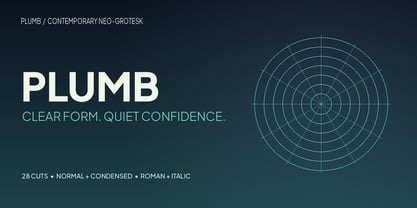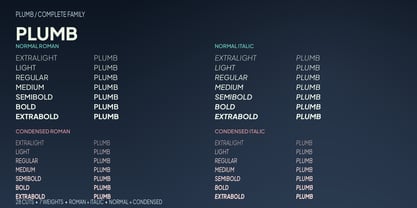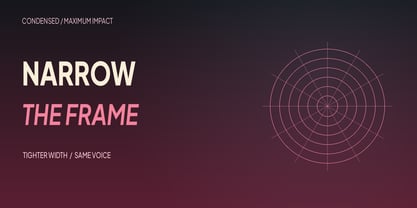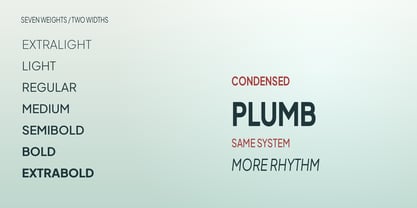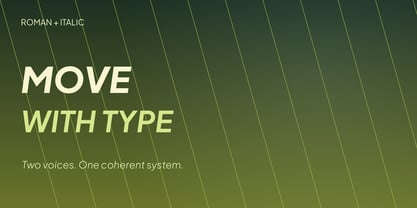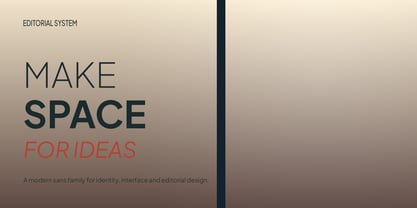
Plumb
by MD-Type
The Plumb Font Family was designed by Mehmet Dogan and published by MD-Type. Plumb contains 28 styles and family package options. More about this family
Plumb is a contemporary neo-grotesk typeface family designed for clear communication and expressive typography. Its balanced proportions, clean shapes and versatile character make it suitable for branding, editorial design, packaging, posters, interfaces and digital products.
The family includes seven weights, from ExtraLight to ExtraBold, with matching Italic styles. Each weight is also available in a Condensed version for tighter layouts and stronger visual impact. The Roman styles provide clarity and stability, while the Italics add movement and emphasis.
Plumb combines a refined modern appearance with excellent flexibility across display and text applications. Use the lighter weights for elegant layouts and subtle interface work, the regular and medium weights for everyday typography, and the bold and extra-bold styles for headlines, logos and striking visual compositions.
With 28 styles across normal, italic, condensed and condensed italic formats, Plumb is a complete typographic system for contemporary design.
Designers: Mehmet Dogan
Foundry: MD-Type